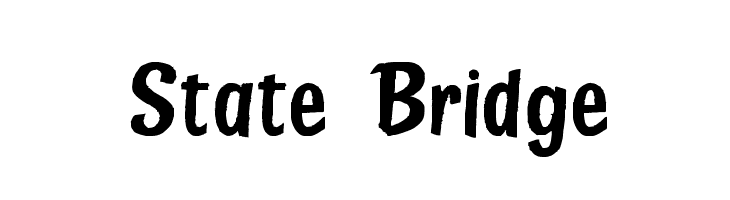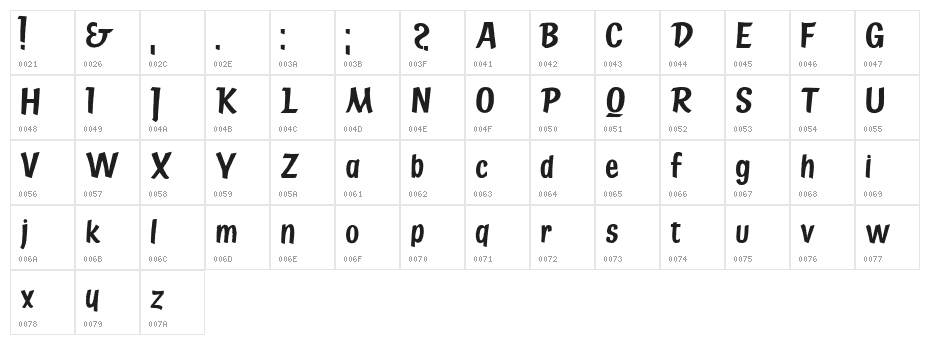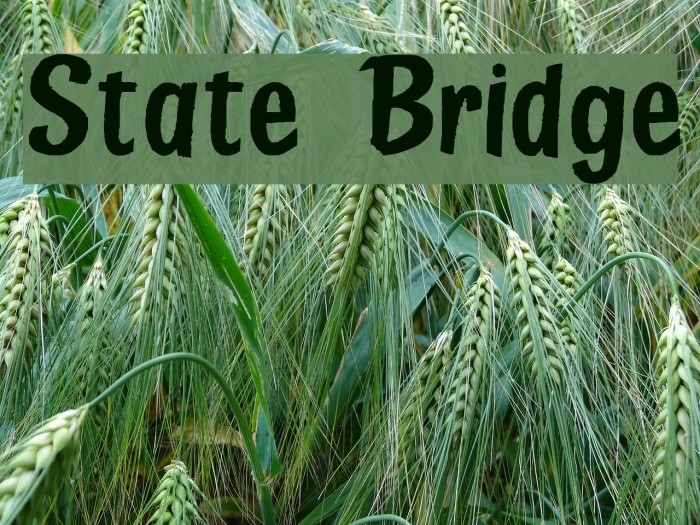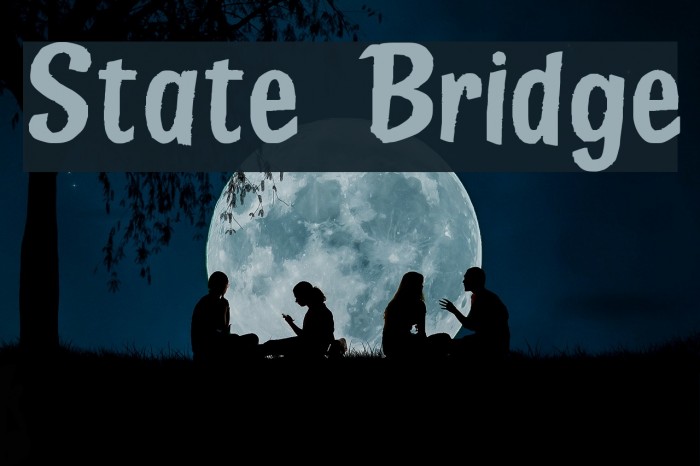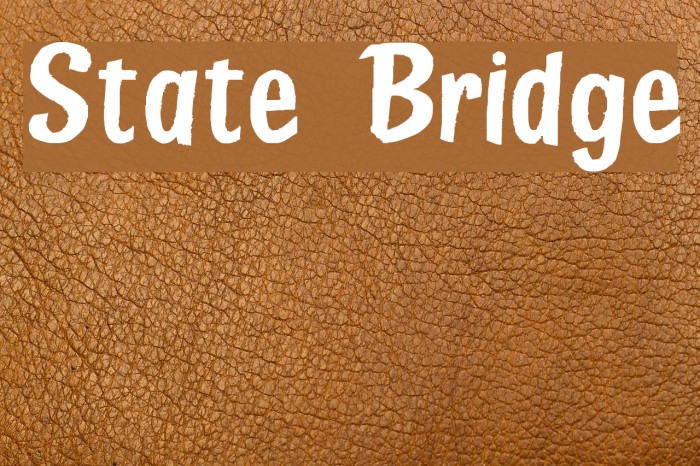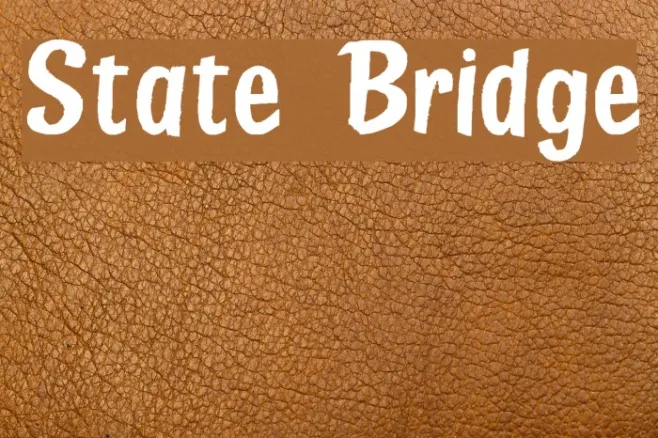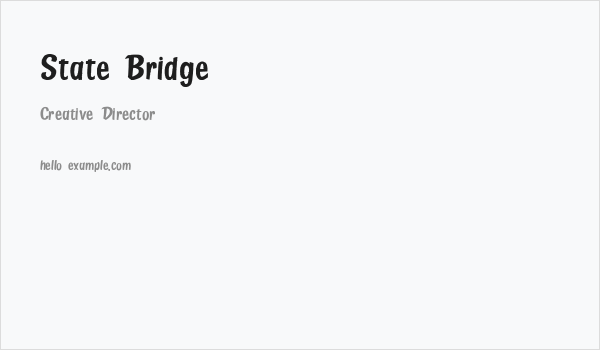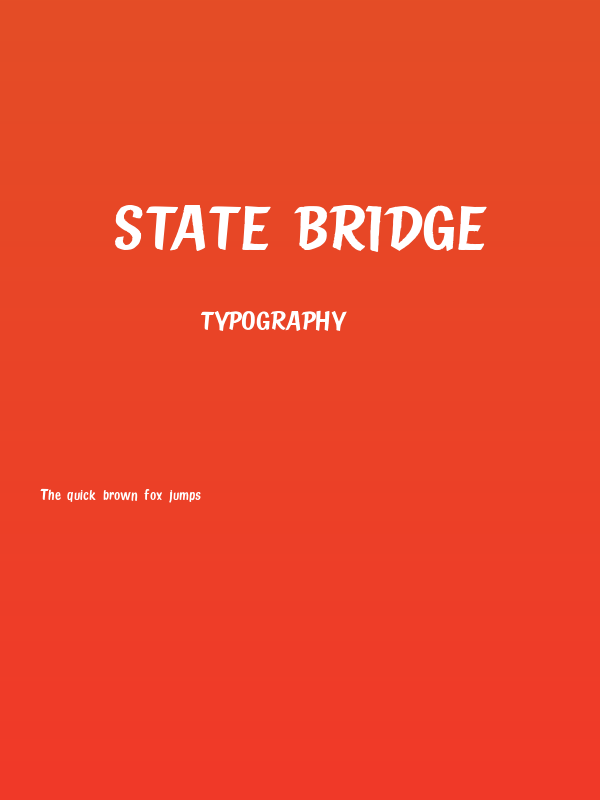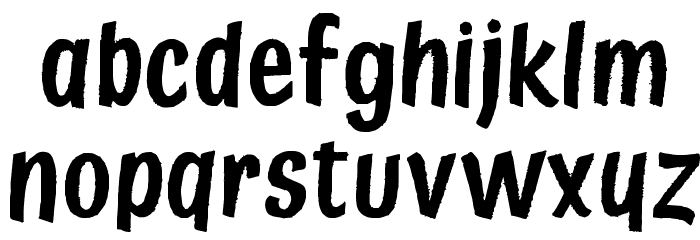
State Bridge Font
State Bridge Description
This font features a bold and dynamic style with a hand-drawn appearance, characterized by its uneven strokes and slightly irregular shapes. The uppercase letters are strong and assertive, while the lowercase letters maintain a playful yet robust form. The font includes a full set of uppercase and lowercase letters, numbers, and a selection of special characters. Its distinctive brush-like texture gives it a unique, artistic flair, making it stand out in any design. The characters are slightly slanted, adding a sense of movement and energy to the text.
| Overall Style | Artistic, Dynamic |
| Proposed Projects | Ideal for creative projects such as posters, logos, and branding materials that require a bold and artistic touch. |